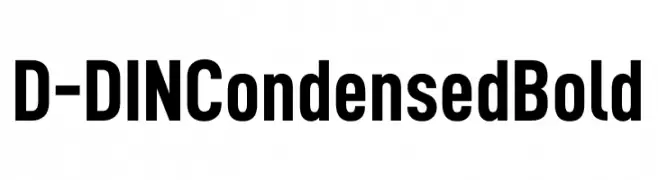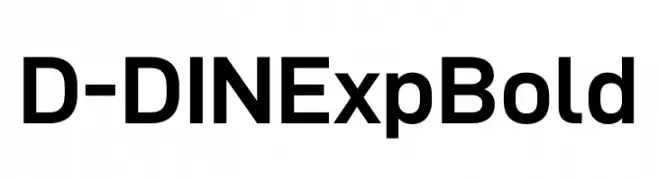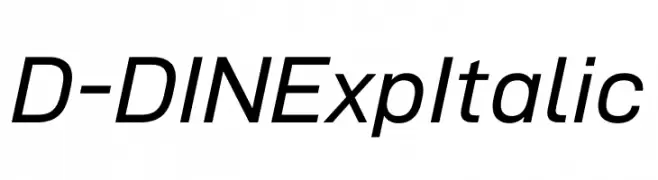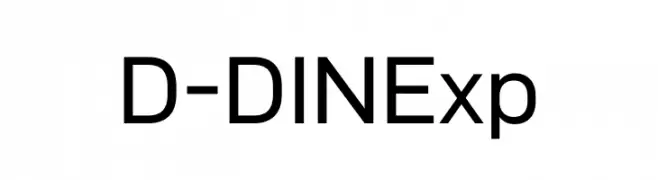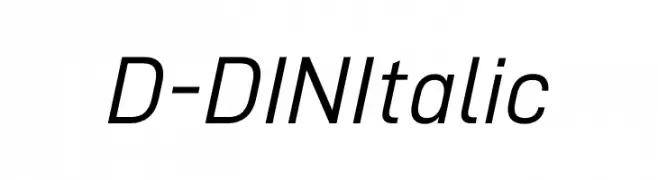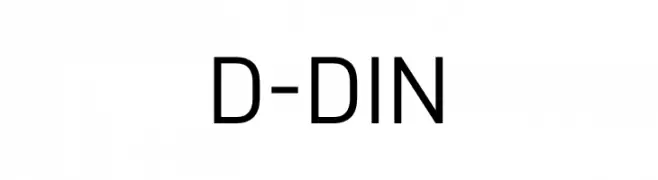
A modern, italicized font with geometric precision and consistent stroke widths.
A clean, geometric sans-serif typeface with a modern and structured design.
A bold, condensed sans-serif font with a modern and structured appearance.
A modern, italicized sans-serif font with a clean and professional look.
A bold, modern sans-serif font with geometric precision and excellent readability.
A modern, geometric sans-serif font with uniform stroke widths and clear readability.
A bold, condensed font with a modern and geometric style.
A clean, geometric sans-serif font with a modern and professional appearance.
A modern, italic sans-serif font with clean lines and a dynamic style.